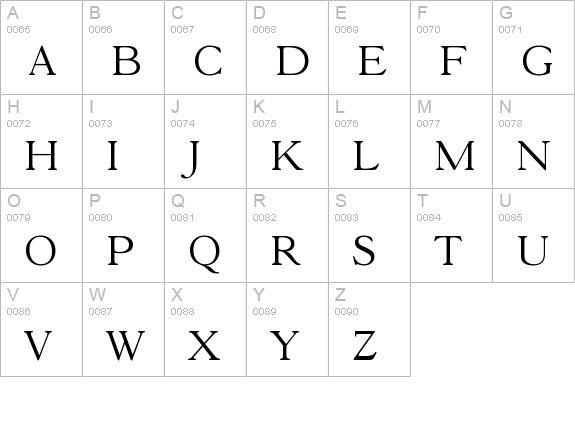
GascogneSerial-Light-Regular is a refined, elegant variant in the GascogneSerial typeface family \xE2\x80\x94 well suited to elegant body text, refined sub-headings, and luxury branding.
GascogneSerial-Light-Regular is a modern and elegant font that exudes sophistication and clarity. With its clean lines and balanced curves, this font is perfect for a wide range of design projects, from branding to editorial layouts. The light weight of this font adds a touch of delicacy and refinement, making it a versatile choice for both digital and print applications. What's even better is that GascogneSerial-Light-Regular is available for free download at FontsMarket.com. This means you can easily access this beautiful font for all your creative needs without any cost. Don't miss out on the opportunity to enhance your designs with the timeless appeal of GascogneSerial-Light-Regular. Download it now and elevate your projects with this exquisite typeface.